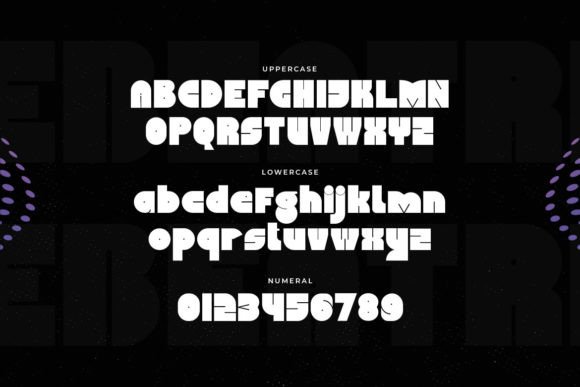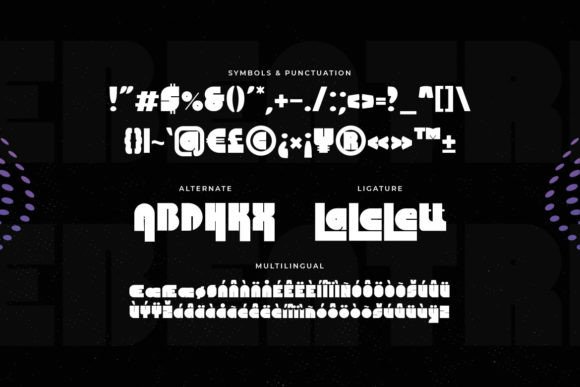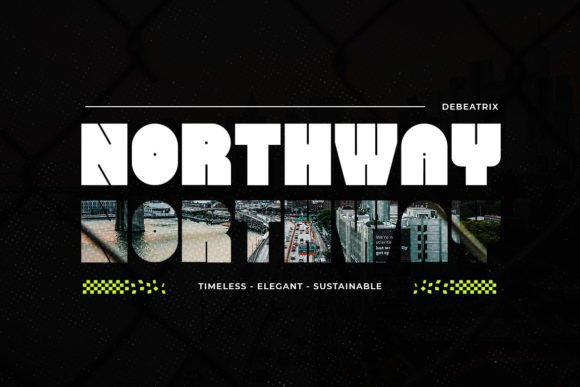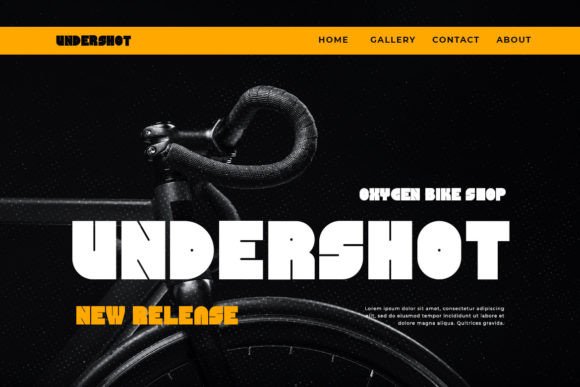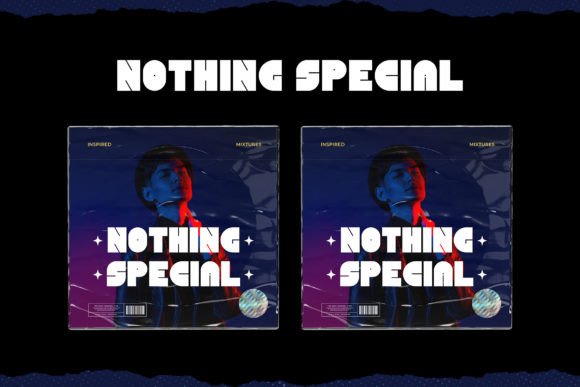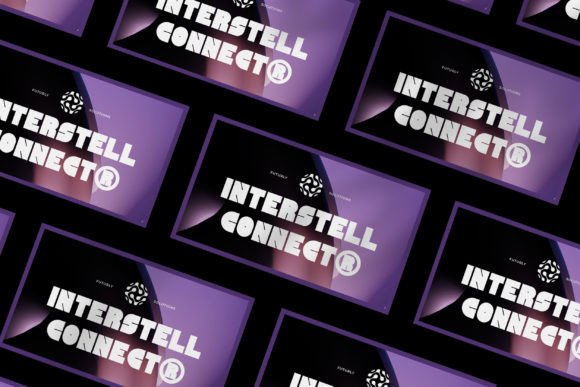
Discover the Charm of Debeatrix Font: A Handcrafted Display Typeface
In the world of typography, a good font can make all the difference in the aesthetic and effectiveness of a design. For designers and crafters looking for a unique and versatile typeface, Debeatrix Font is an excellent choice. This display typeface has been carefully handcrafted to become a true favorite among designers, and its casual and bold charm makes it perfect for a wide range of design applications.
The Characteristics of Debeatrix Font
Debeatrix Font is a display typeface that exudes a sense of casual elegance. Its bold and charming design makes it appear wonderful, down-to-earth, readable, ultimate, and versatile. This font is perfect for designers who want to add a touch of personality to their designs without sacrificing readability. Whether it’s being used on busy backgrounds or as a standalone headline, Debeatrix Font is sure to make a statement.
What Makes Debeatrix Font Stand Out
So, what sets Debeatrix Font apart from other typefaces? Here are a few key characteristics that make it a standout:
- Handcrafted with love: Debeatrix Font is a carefully handcrafted typeface, designed to bring a touch of personality to your designs.
- Versatile and adaptable: This font is perfect for use on a wide range of design applications, from posters and flyers to websites and social media graphics.
- Bold and charming: Debeatrix Font has a bold and charming design that is sure to grab attention and make a lasting impression.
- Readable and legible: Despite its bold design, Debeatrix Font is highly readable and legible, making it perfect for use on busy backgrounds or in situations where text needs to be clear and easy to read.
How to Use Debeatrix Font in Your Designs
Debeatrix Font is a versatile typeface that can be used in a wide range of design applications. Here are a few ideas to get you started:
- Posters and flyers: Use Debeatrix Font as a headline or title font to add a touch of personality to your posters and flyers.
- Websites and social media graphics: Debeatrix Font is perfect for use on websites and social media graphics, where its bold and charming design can help to grab attention and engage audiences.
- Branding and packaging: Use Debeatrix Font as a display font for branding and packaging applications, where its unique and memorable design can help to set your brand apart.
Tips for Getting the Most Out of Debeatrix Font
Here are a few tips for getting the most out of Debeatrix Font:
- Experiment with different colors and textures: Debeatrix Font looks great in a wide range of colors and textures, so don’t be afraid to experiment and find the combination that works best for your design.
- Use it as a statement piece: Debeatrix Font is a bold and charming typeface, so use it as a statement piece to add personality and interest to your designs.
- Pair it with other fonts: Debeatrix Font pairs well with a wide range of other fonts, so don’t be afraid to experiment and find the perfect combination for your design.
Debeatrix Font is a unique and versatile typeface that is perfect for designers and crafters looking to add a touch of personality to their designs. Its bold and charming design makes it perfect for use on a wide range of design applications, from posters and flyers to websites and social media graphics. With its handcrafted design, versatile adaptability, and bold and charming characteristics, Debeatrix Font is sure to become a true favorite among designers.